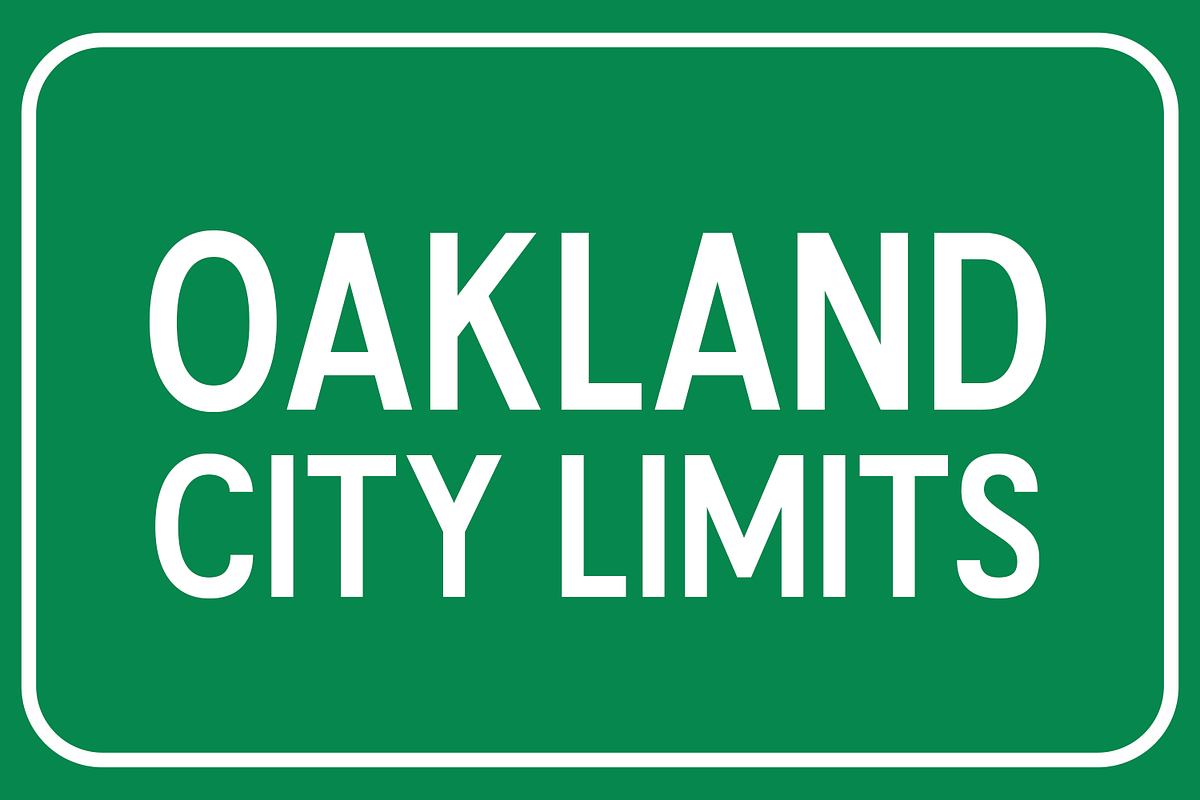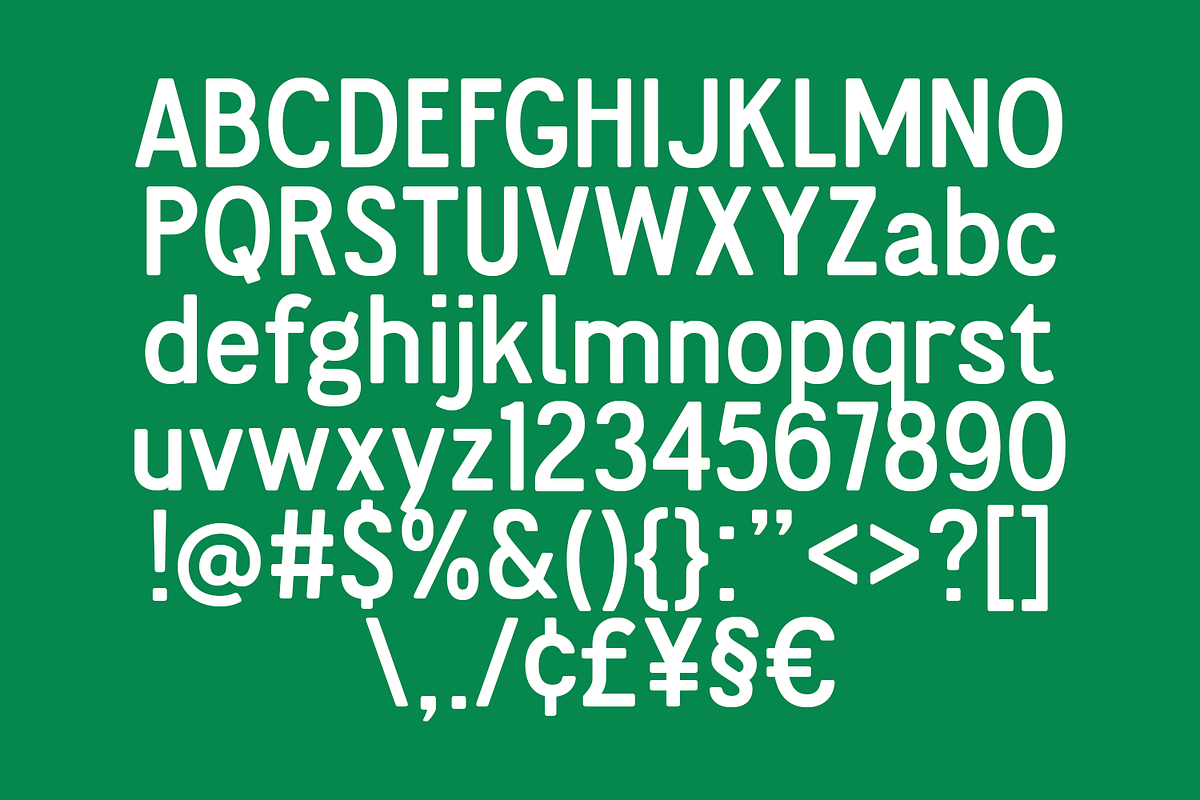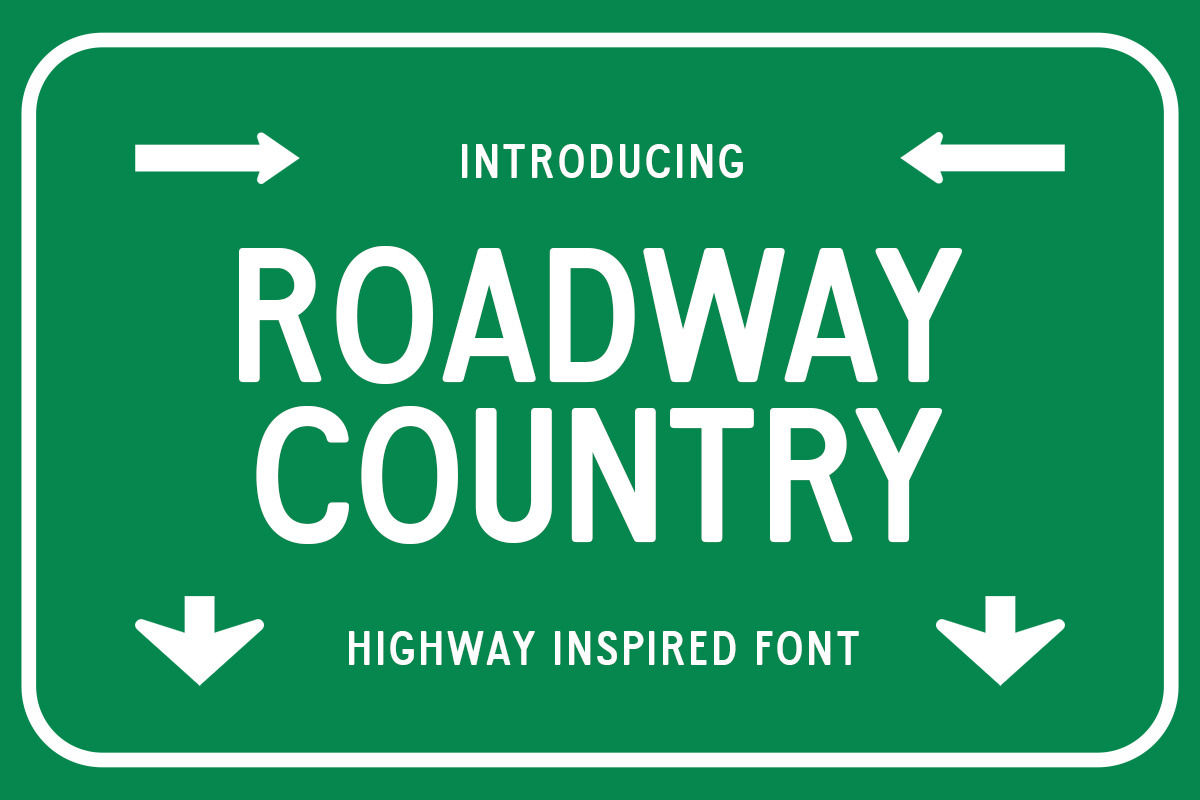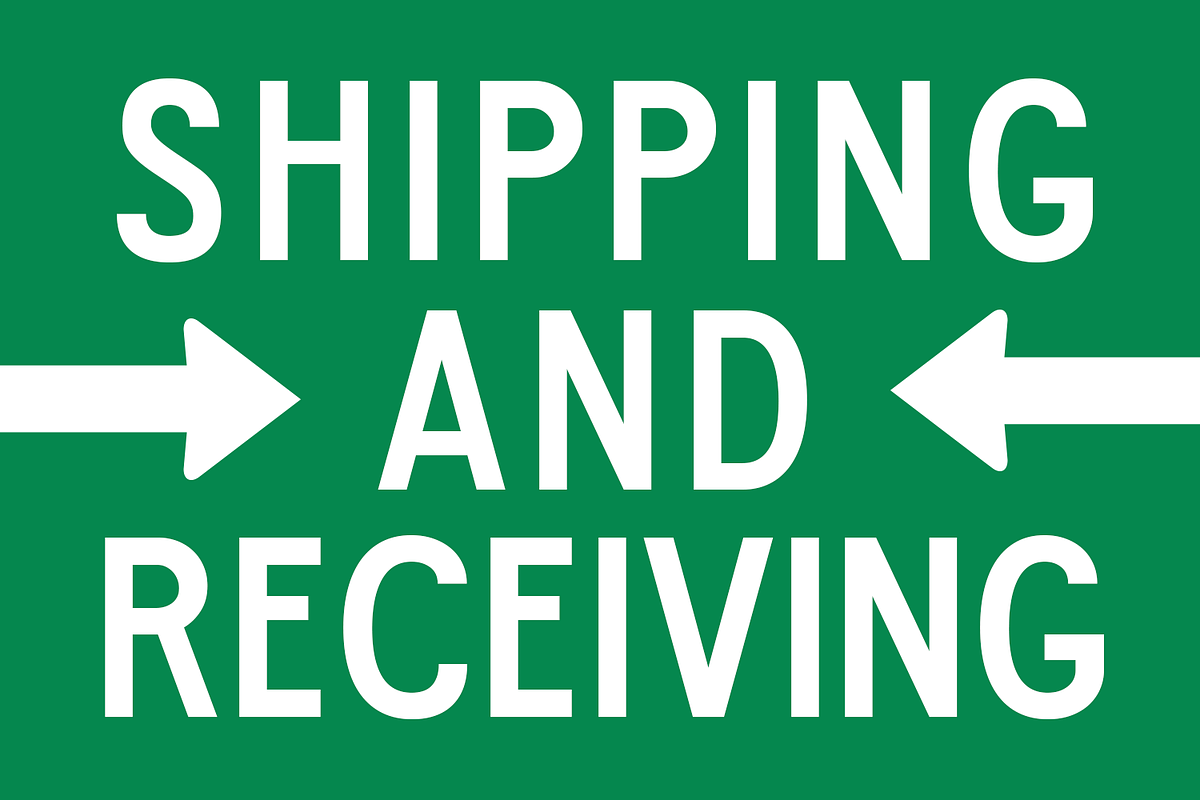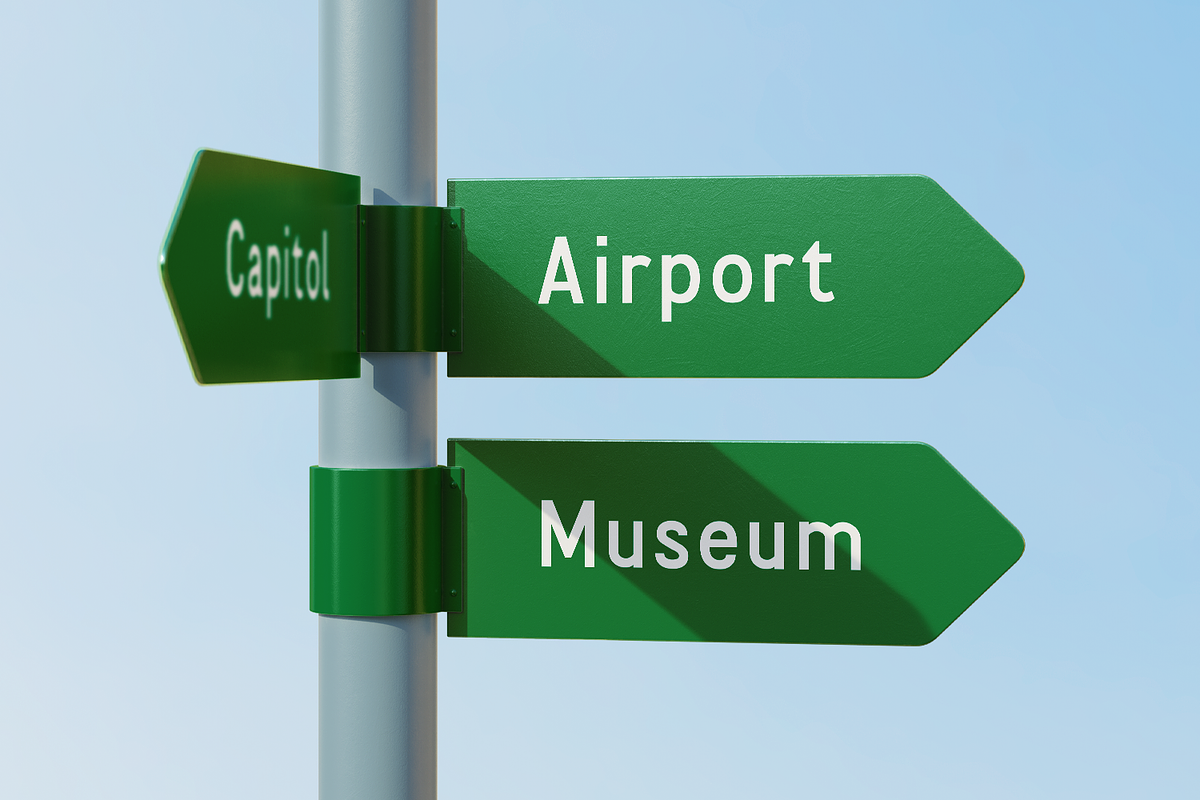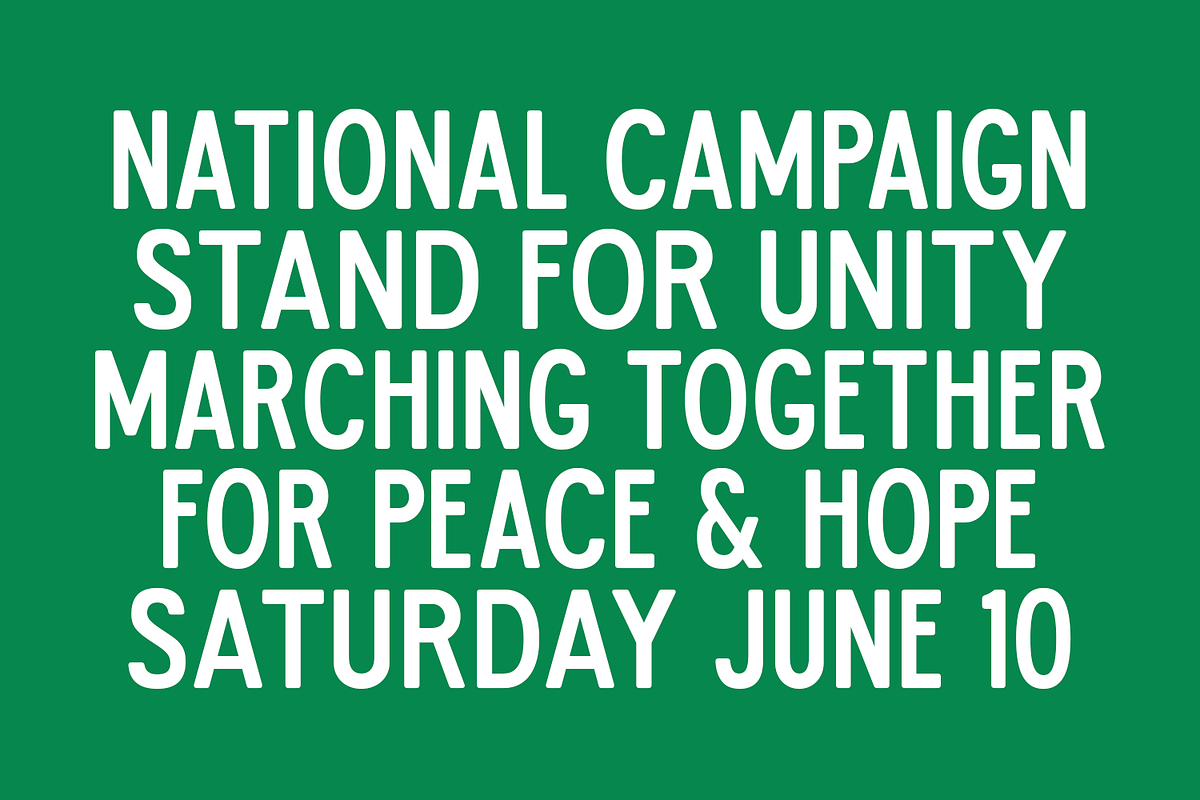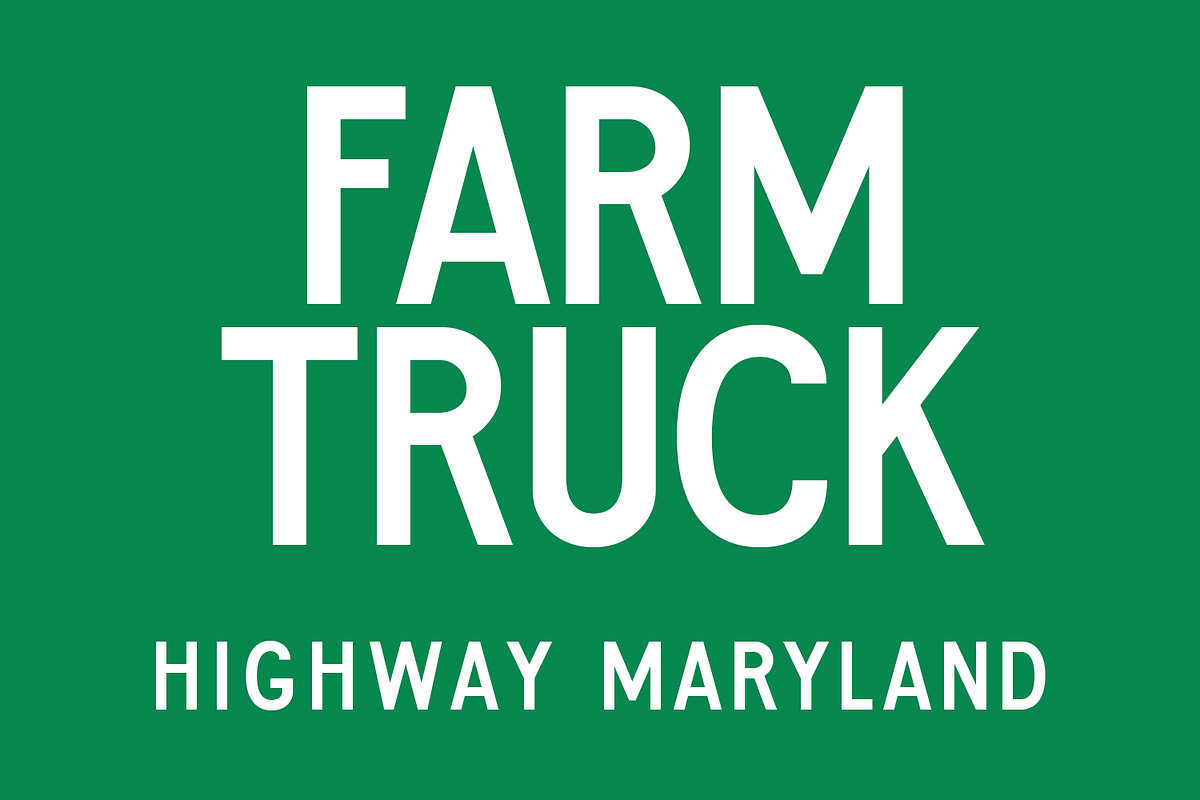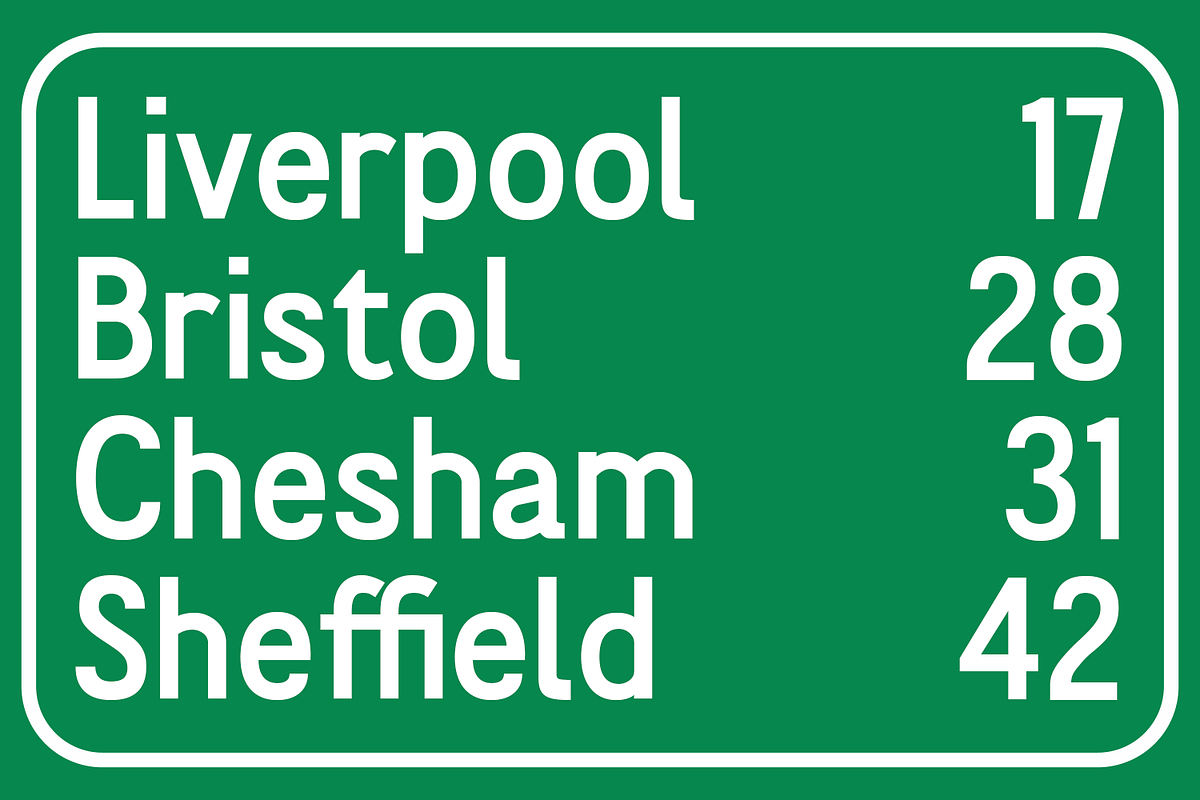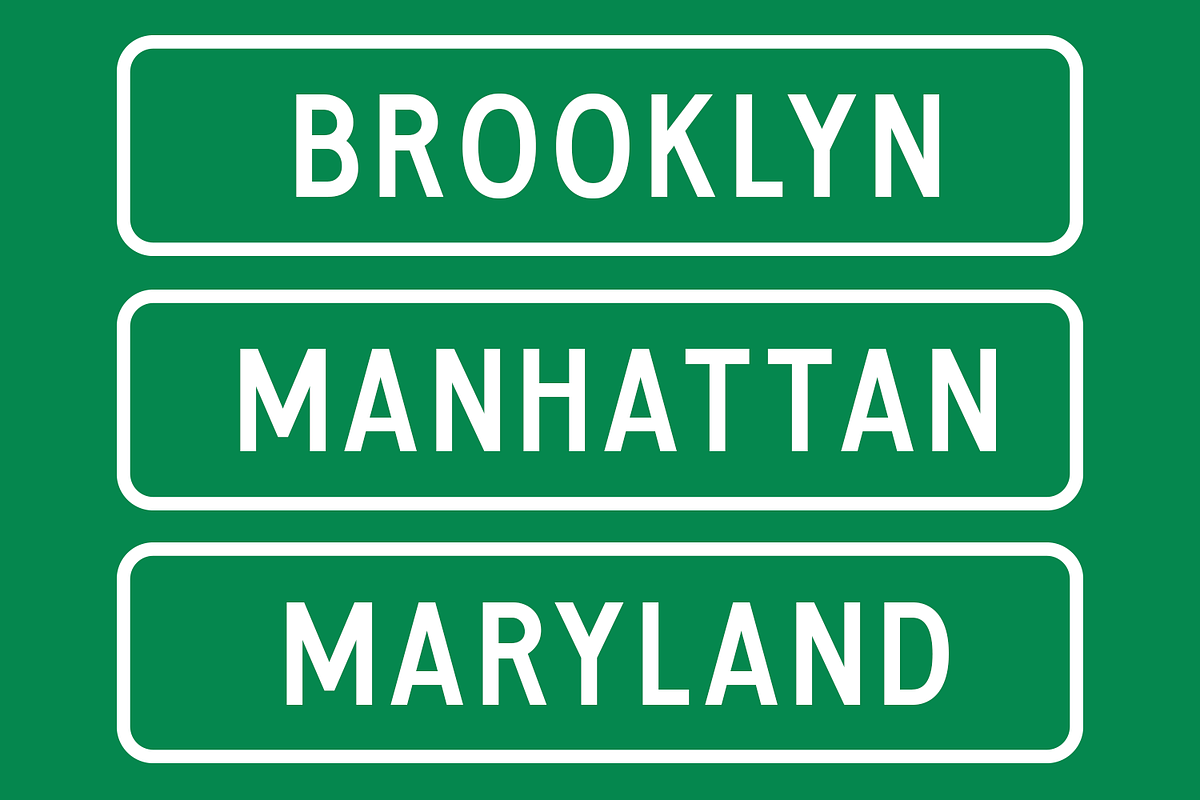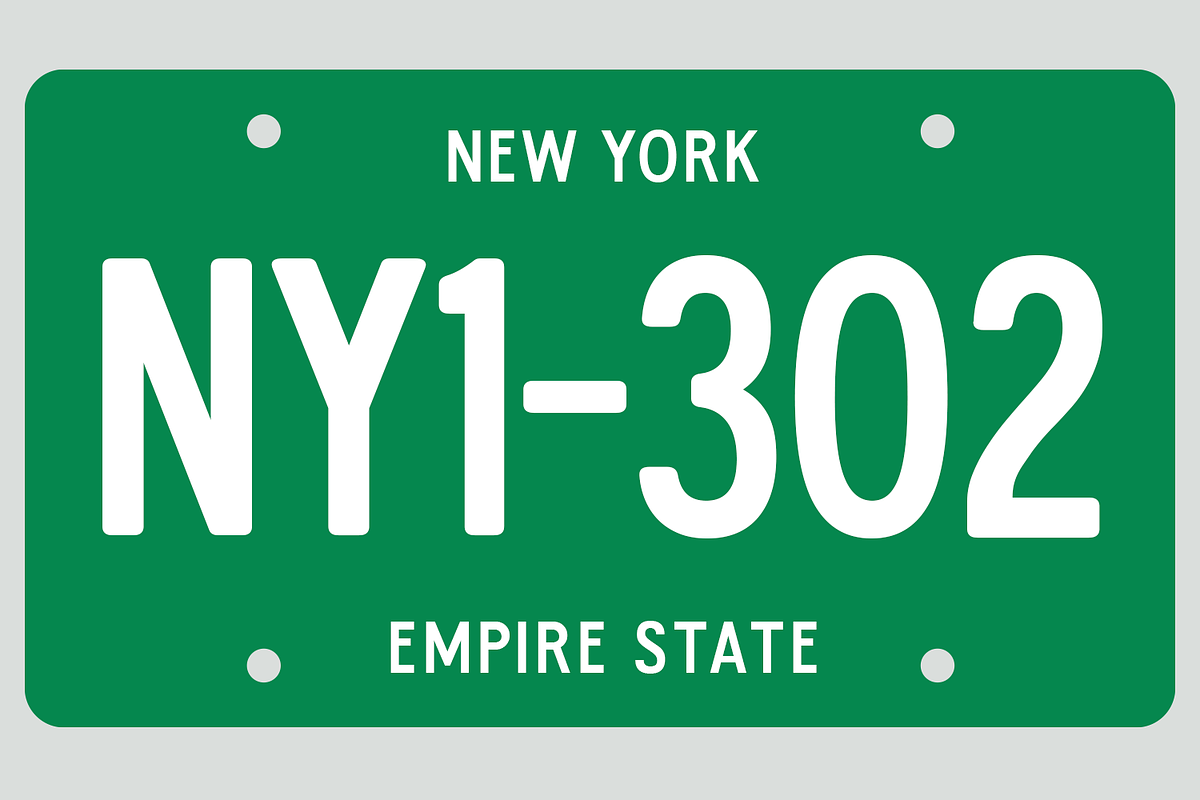
Roadway Country - Highway Font
Say hello to Roadway Country, a font inspired by the classic look of highway signs! With its clean lines and bold style, this typeface is all about making your message stand out loud and clear. Whether you're designing for posters, branding, or anything that needs a strong and confident vibe, Roadway Country is here to point the way. Simple, sharp, and super easy to read—let’s hit the road to great design together!